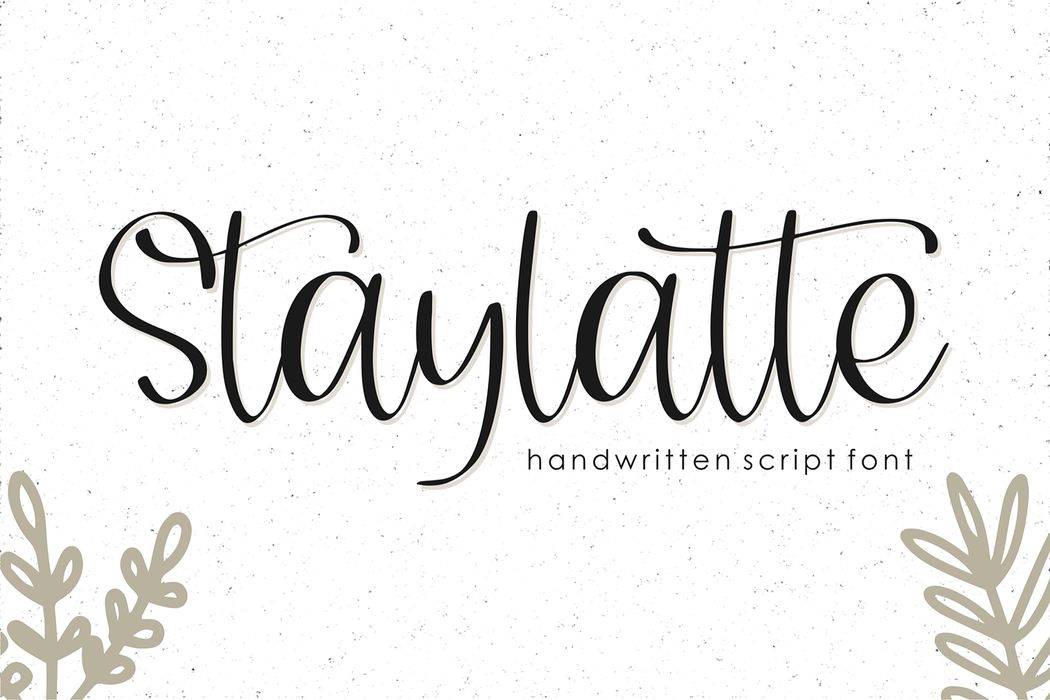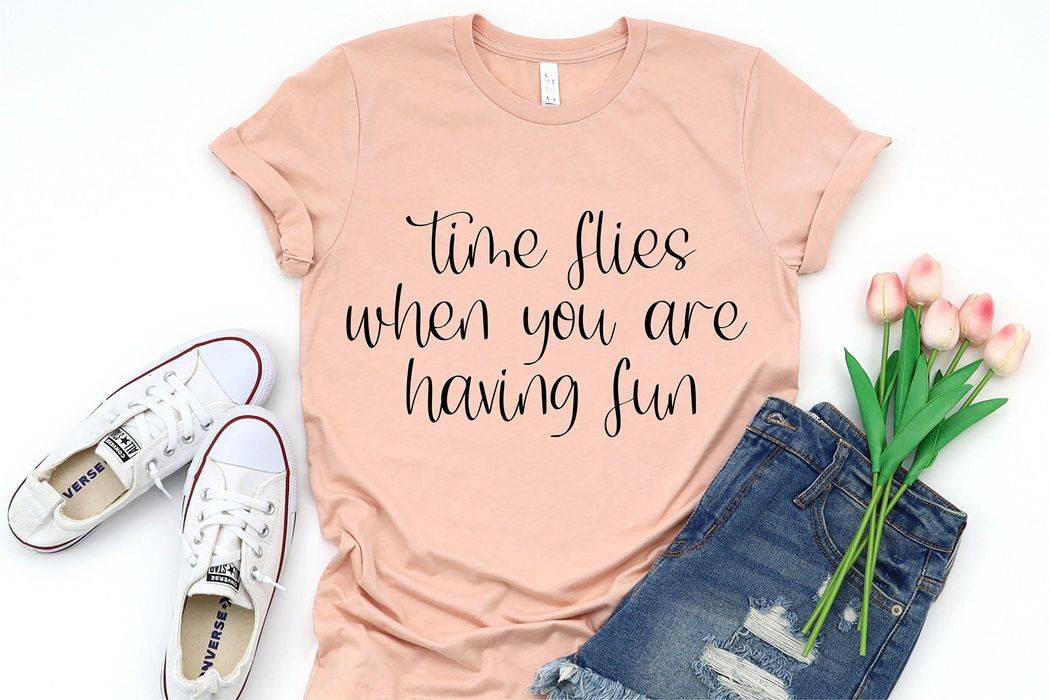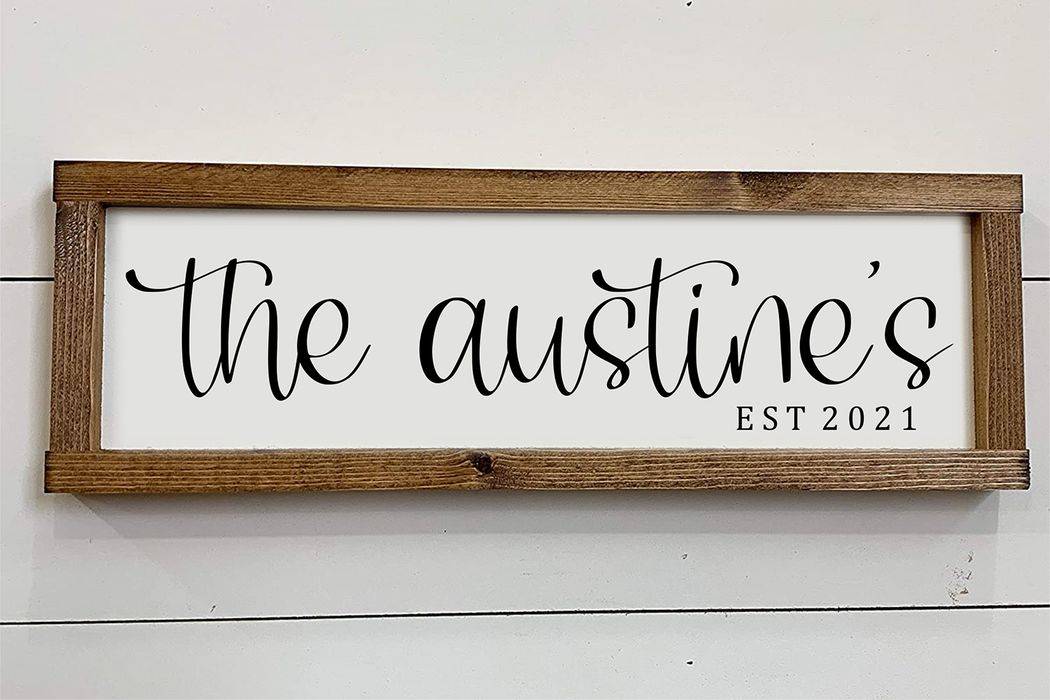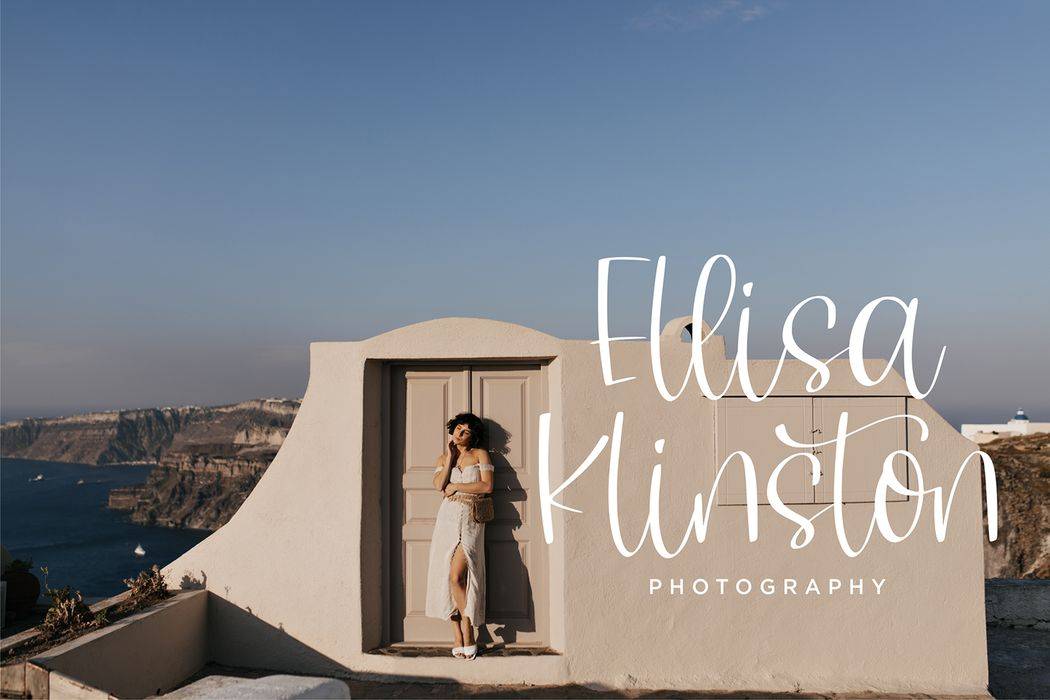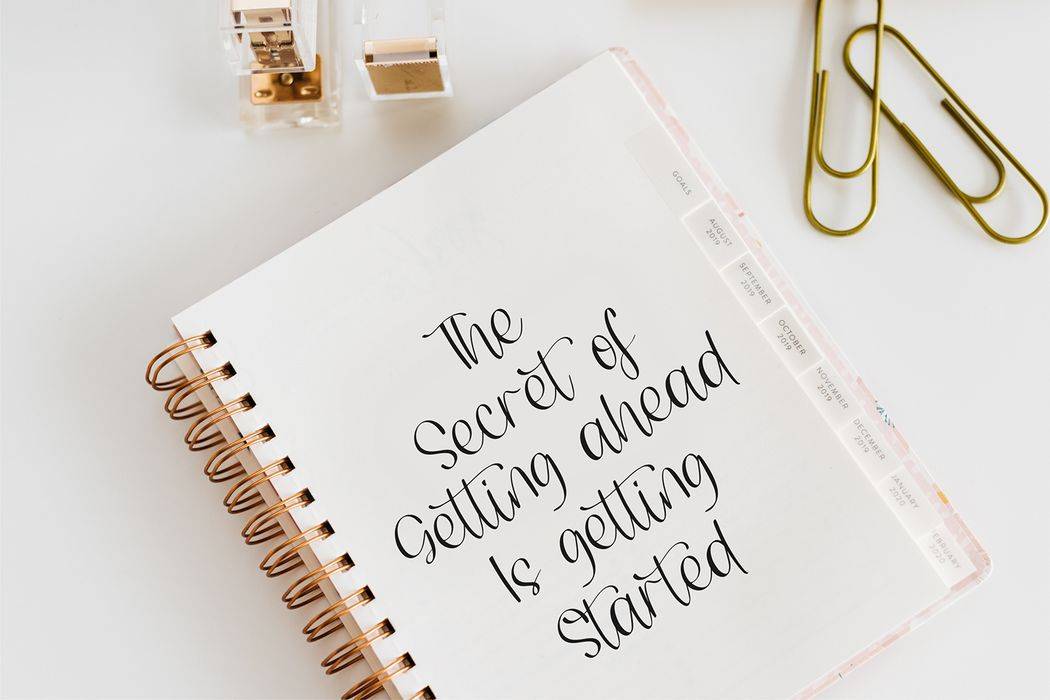
Staylatte is a delicate, handwritten script font with slender strokes and elegant, flowing curves that create a charming and graceful appearance. Its tall, narrow letterforms and playful swashes give it a personal, inviting feel, making it perfect for wedding invitations, branding, and feminine lifestyle designs. This font’s casual yet stylish vibe lends warmth and approachability to any creative project.
Staylatte Font
About Staylatte Font